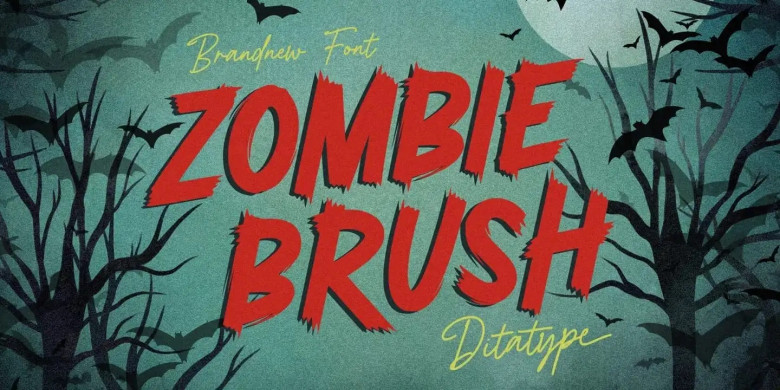
Zombie Brush Font
Zombie Brush is an eerie script font with an alluring brush style design and haunting charm that brings the undead to life. Created using large letters for maximum impact, its appearance exudes mystery and horror while each letter was painstakingly created using brush strokes for added artistry.
This font’s brush-style appearance evokes chaos and unpredictability as though written by an unskilled hand under the influence of dark forces. With large letters that stand out against its background, this font cannot be missed and should be used at larger text sizes to maximize legibility. Take advantage of all its features here.
Zombie Brush Script Font